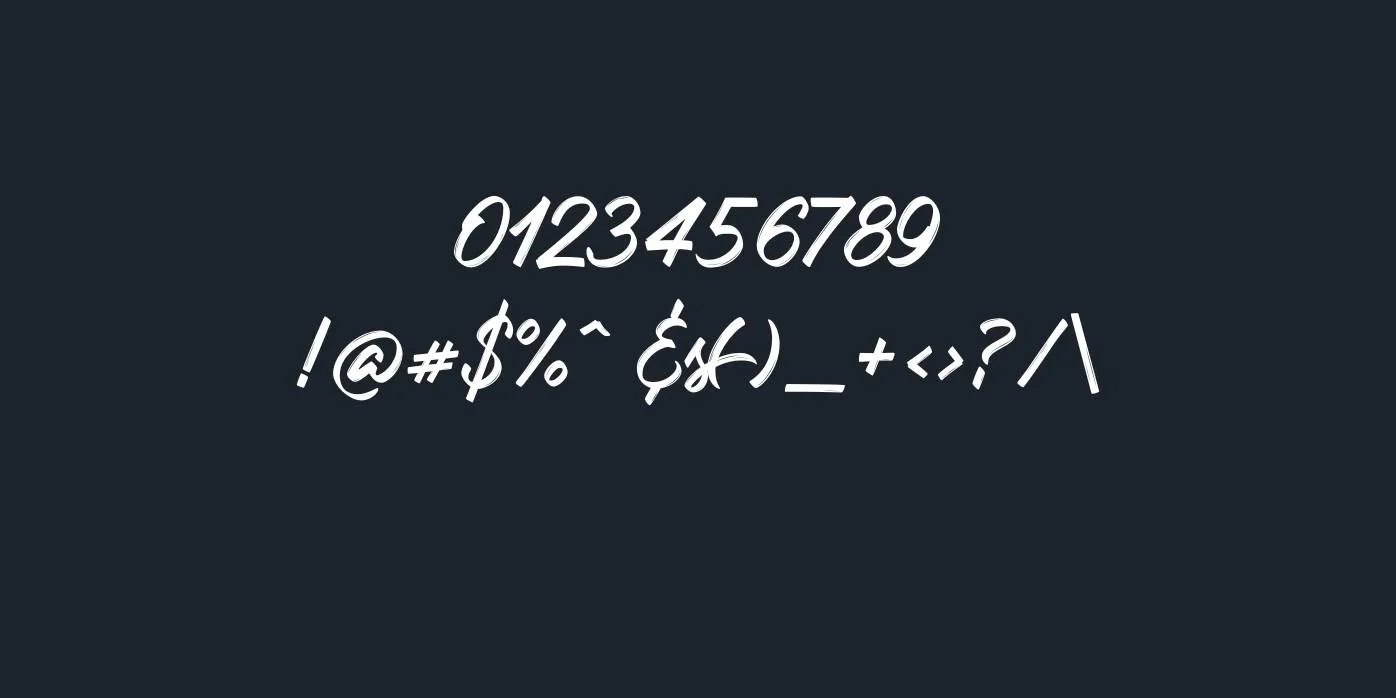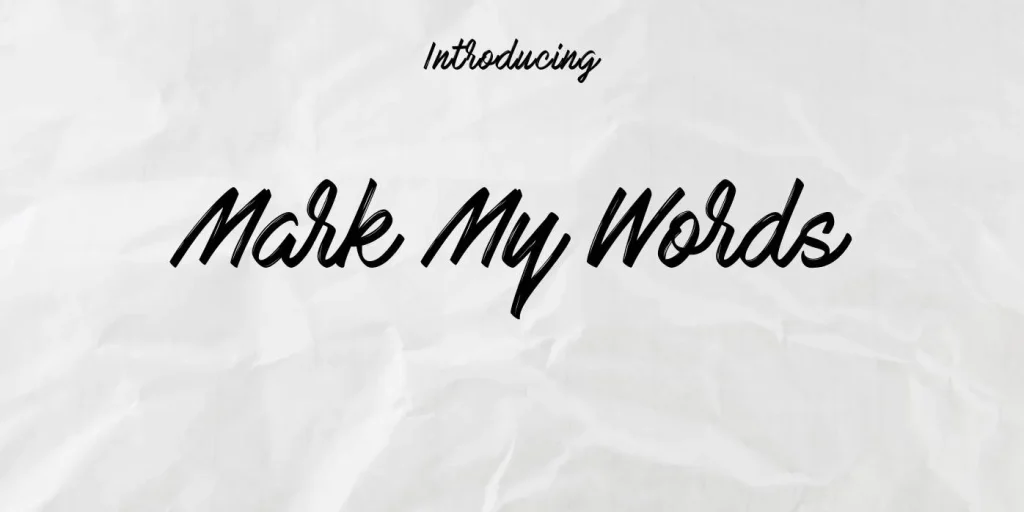
Mark My Words Font is a script font that was designed by Stereotype, it has a natural, delicate, and lovely appearance that is perfect for elegant logos, headlines, posters, watermarks, wedding cards, etc.
This font style arises in Regular weight with TTF and OTF formats. It also includes brushy characters in uppercase, numbers, lowercase, punctuations, alternates, glyphs, accents, and a few special characters.
Design Appearance Of Mark My Words Font
How To Use Mark My Words Font In Your Design?
This typeface is a great choice for the creation of lovely and innovative logos, subtitles, letterheads, captions, symbols, headlines, banners, wedding cards, articles, posters, invites, birthday cards, flyers, resumes, brochures, CVs, and several other projects.
Its unique glyphs also make a well-known pair with brusher font. This typeface design is a top selection for shopping bags, app designs, mug designs, tags, website designs, photographs, printing, promotions, branding, t-shirts, marketing projects, and other related displays.
This style of lettering can make a project more lovely, impactful, and delightful. It can be used on social sites like Facebook, Instagram, Twitter, and YouTube, and can be used in thumbnails, magazines, social media posts, watermarks, reels, book covers, and so on.
What type of font is Mark My Words Font?
This font is a script/brush font that was designed by Stereotype, it has a natural, delicate, and lovely appearance that is perfect for elegant logos, headlines, etc.
What are the characteristics of the Mark My Words Font?
This font belongs to the script font category, It comes with TTF and OTF formats and solo weight, and it has a natural, lovely, and brushy appearance that can make anything stand out.